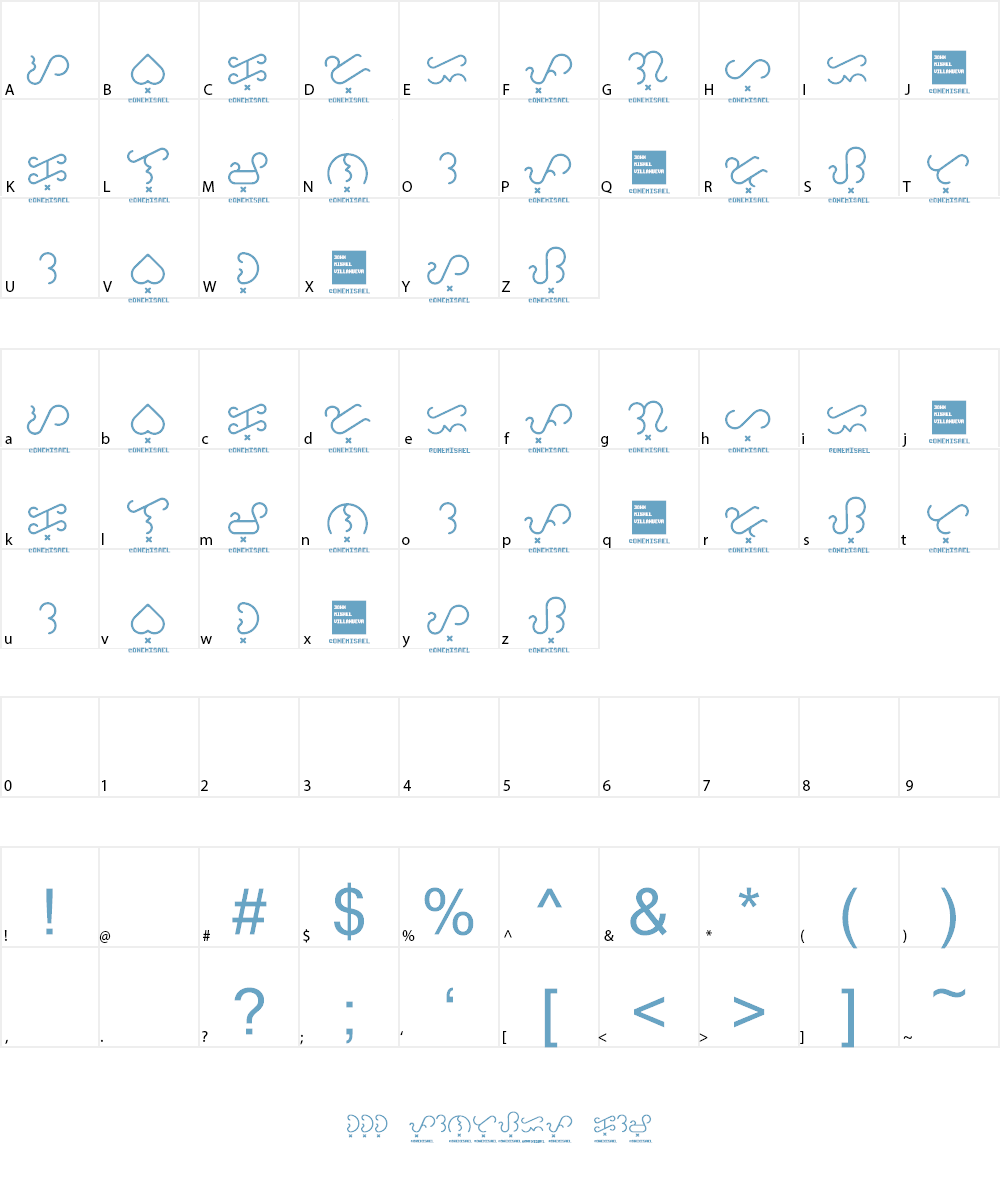
I decided to create the whole Baybayin font set to speed up my design process that involves Baybayin characters. See bit.ly/WTSBaybayin for details.
Baybáyin is the script that Tagalog speakers used for writing before the Spaniards arrived. It is a system of writing with borrowings from Sanskrit. When the Spaniards started propagating the Latin alphabet in the late 16th century, the baybáyin script fell into disuse. (https://www.tagaloglang.com/baybayin/)